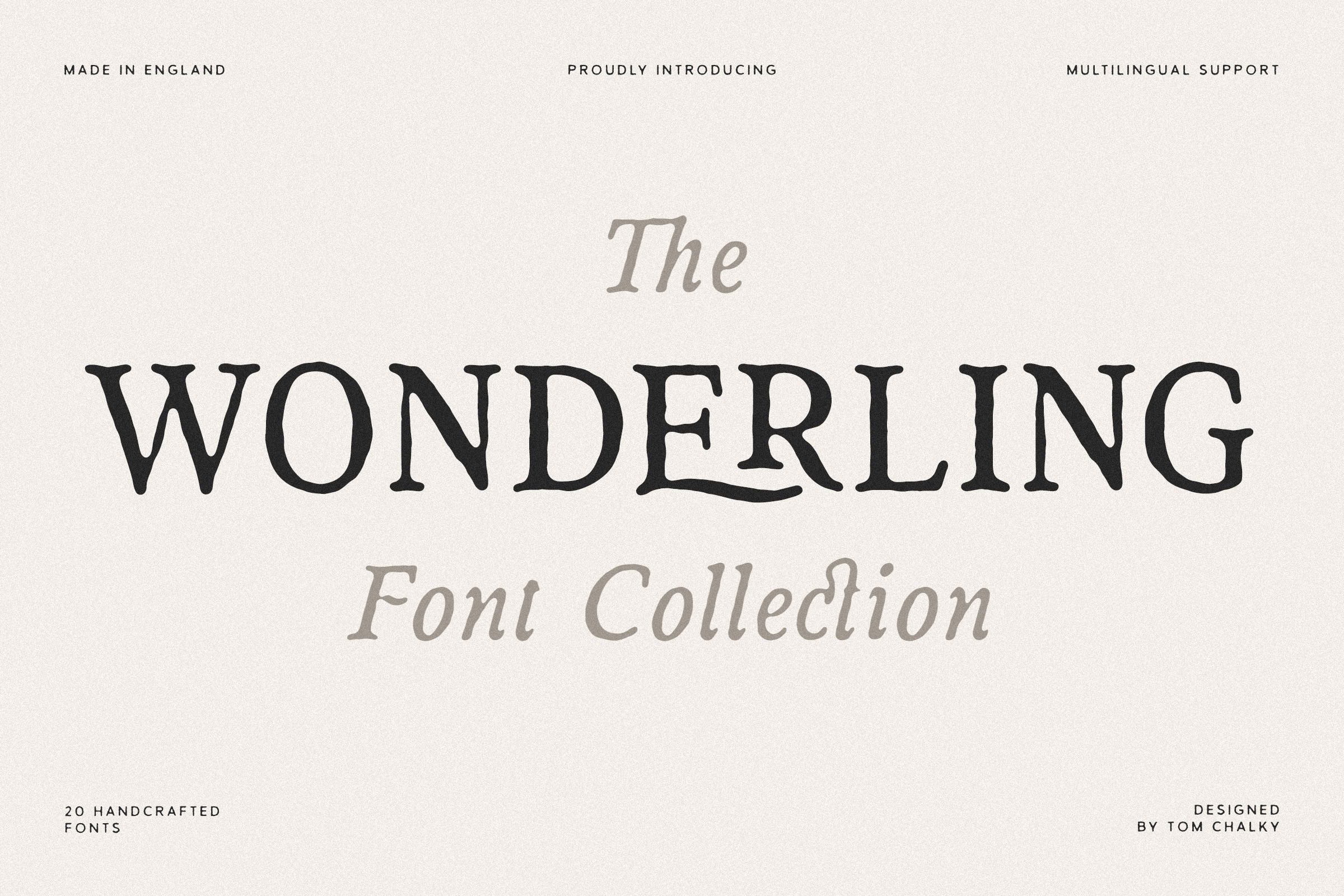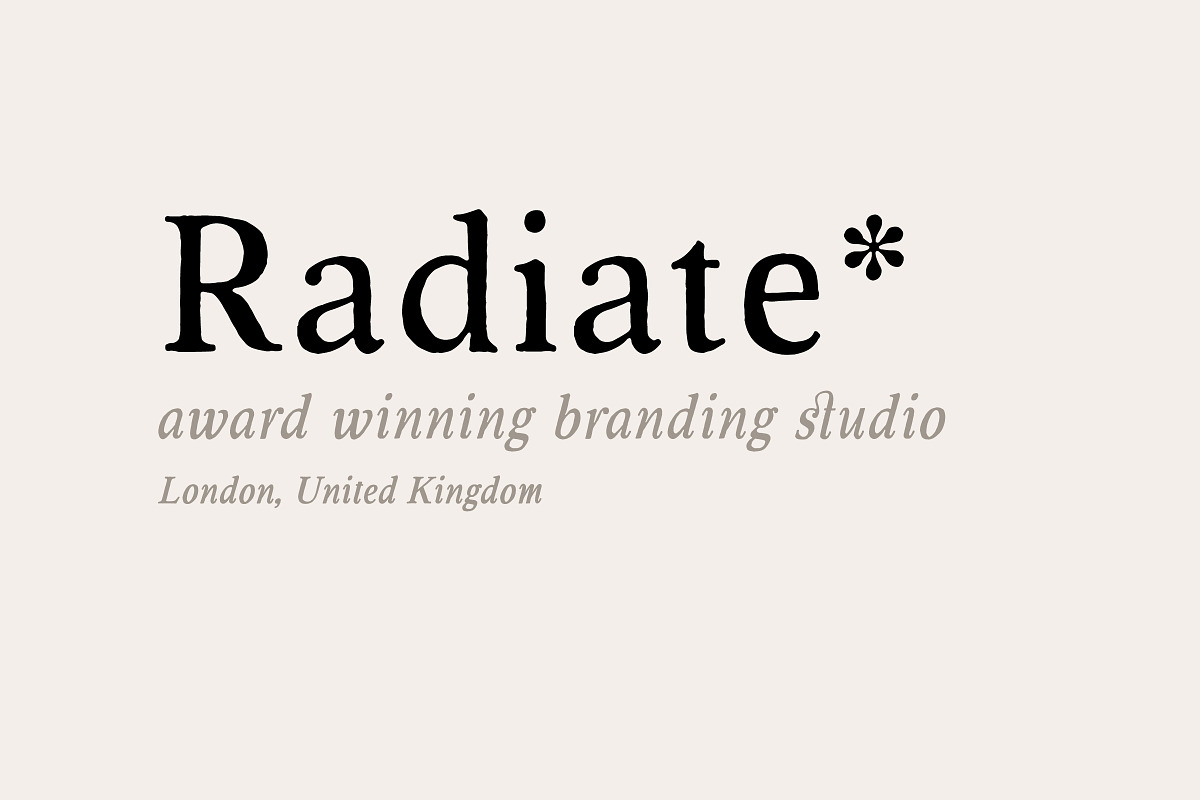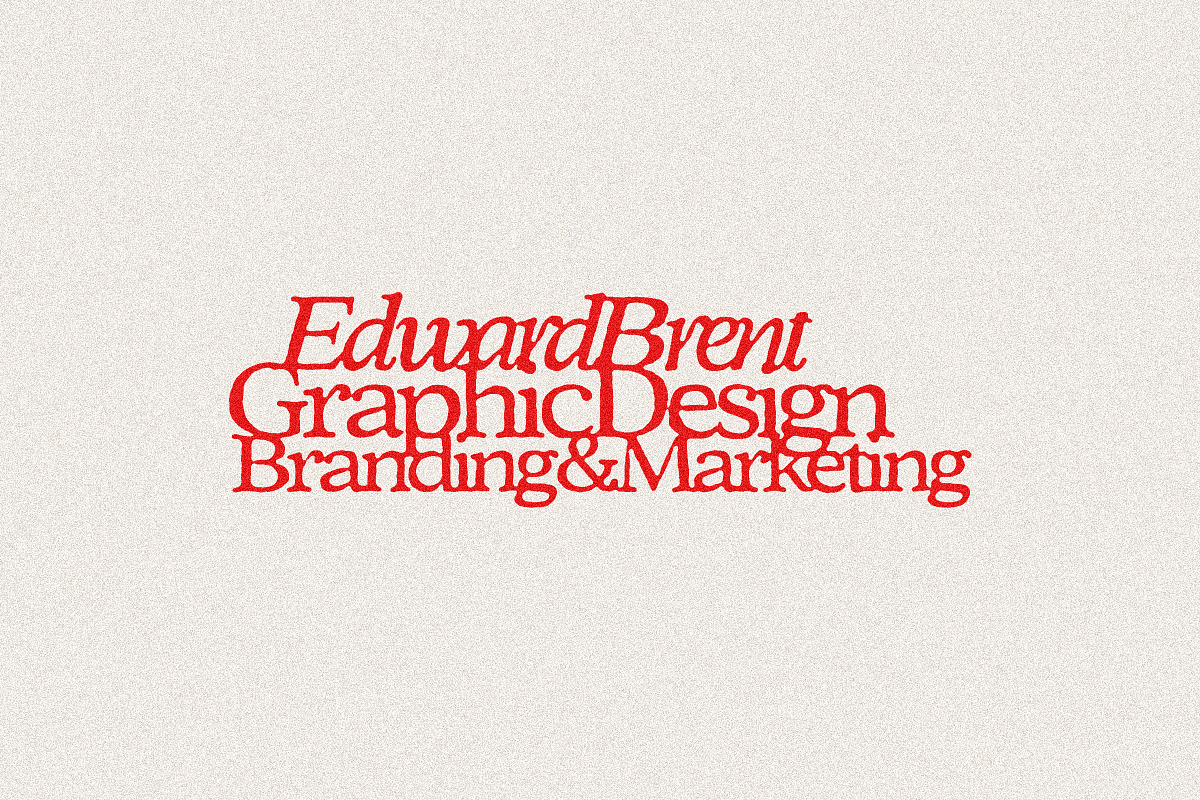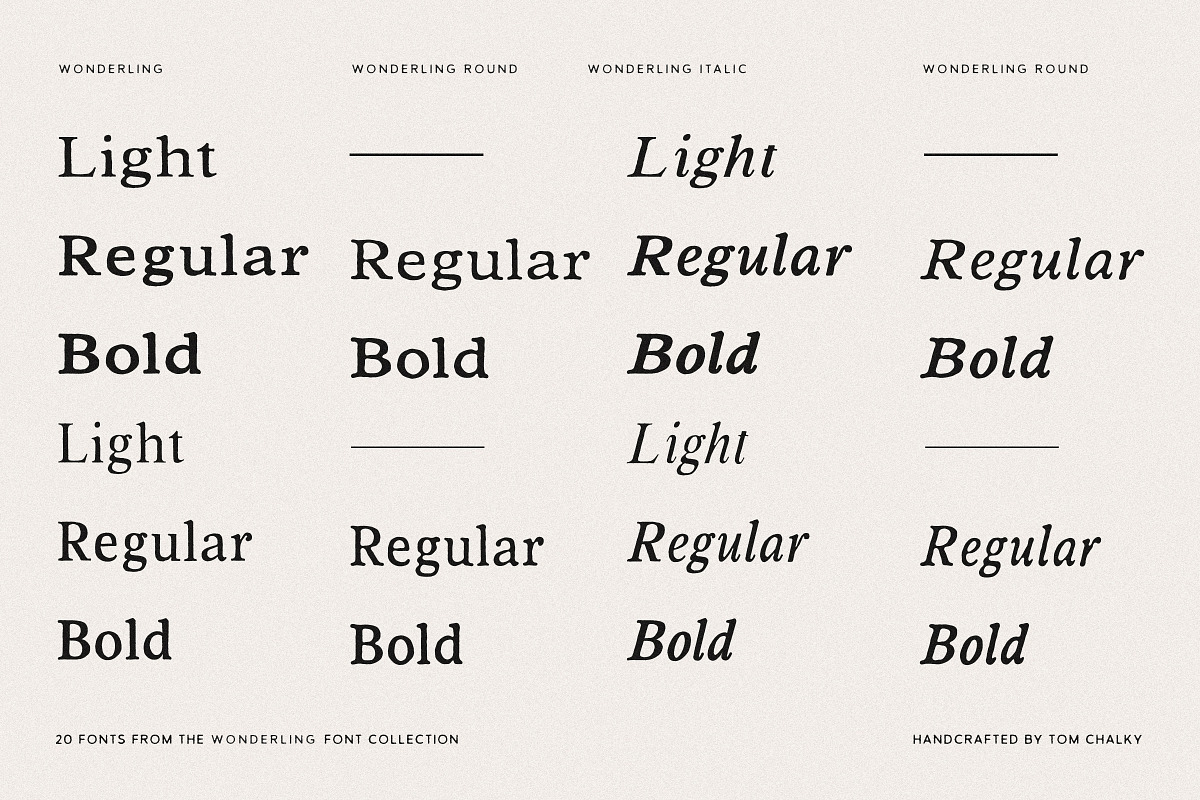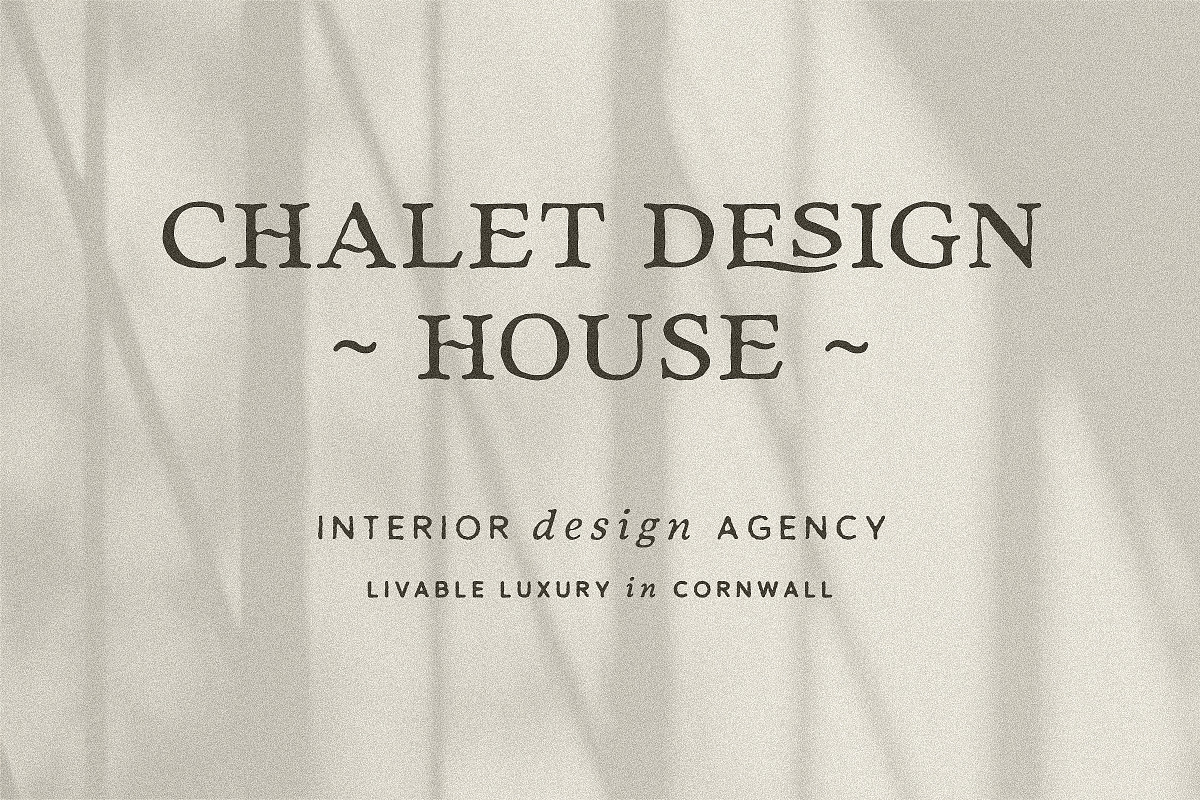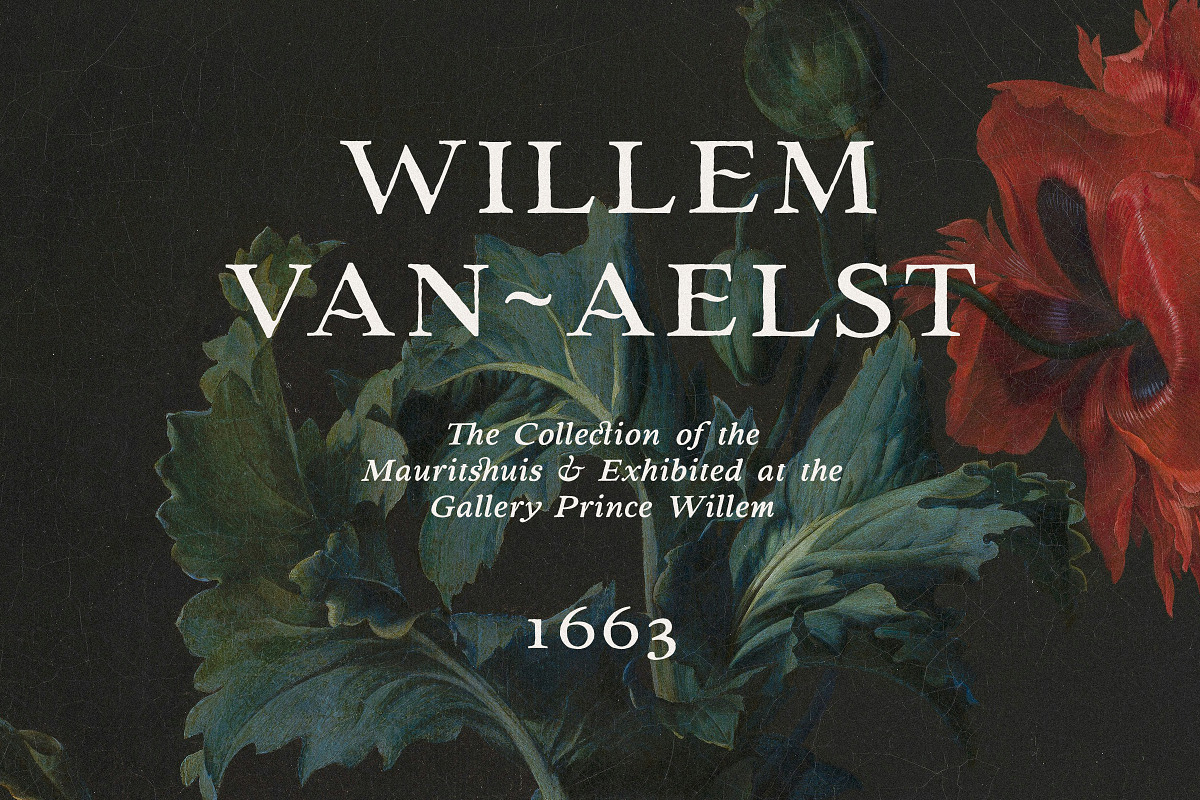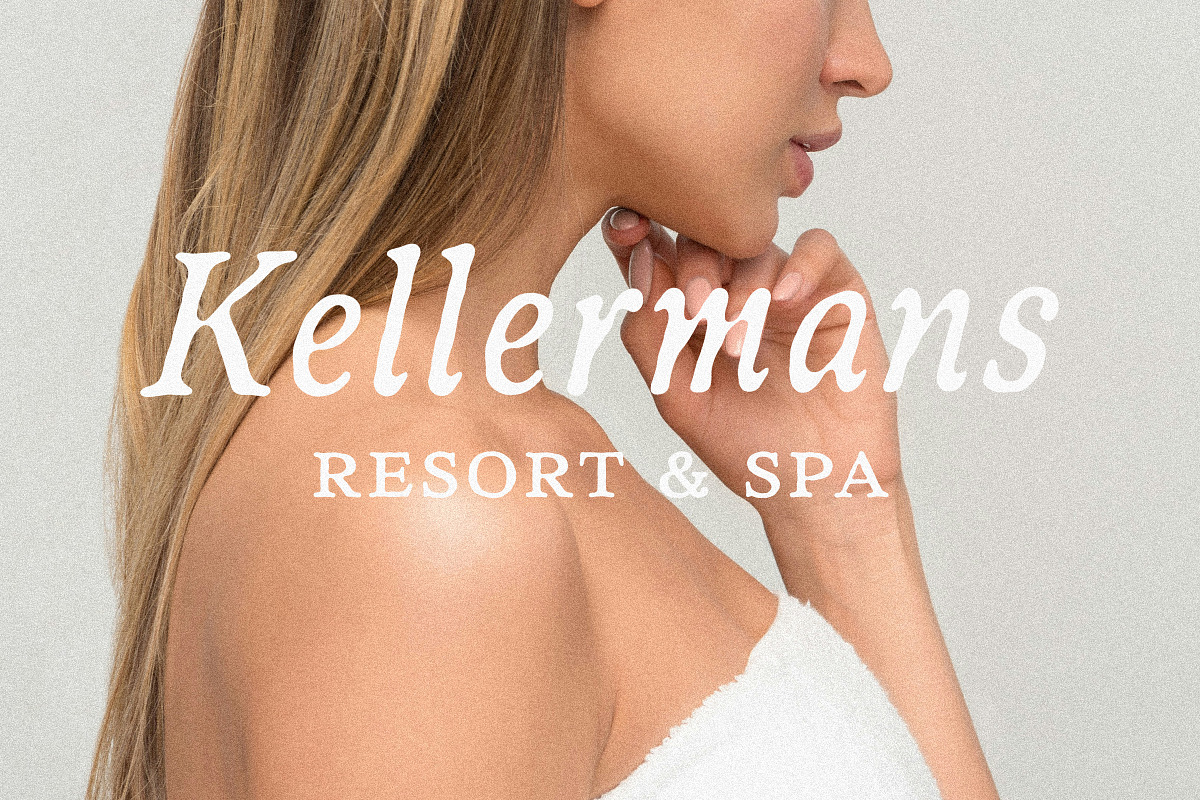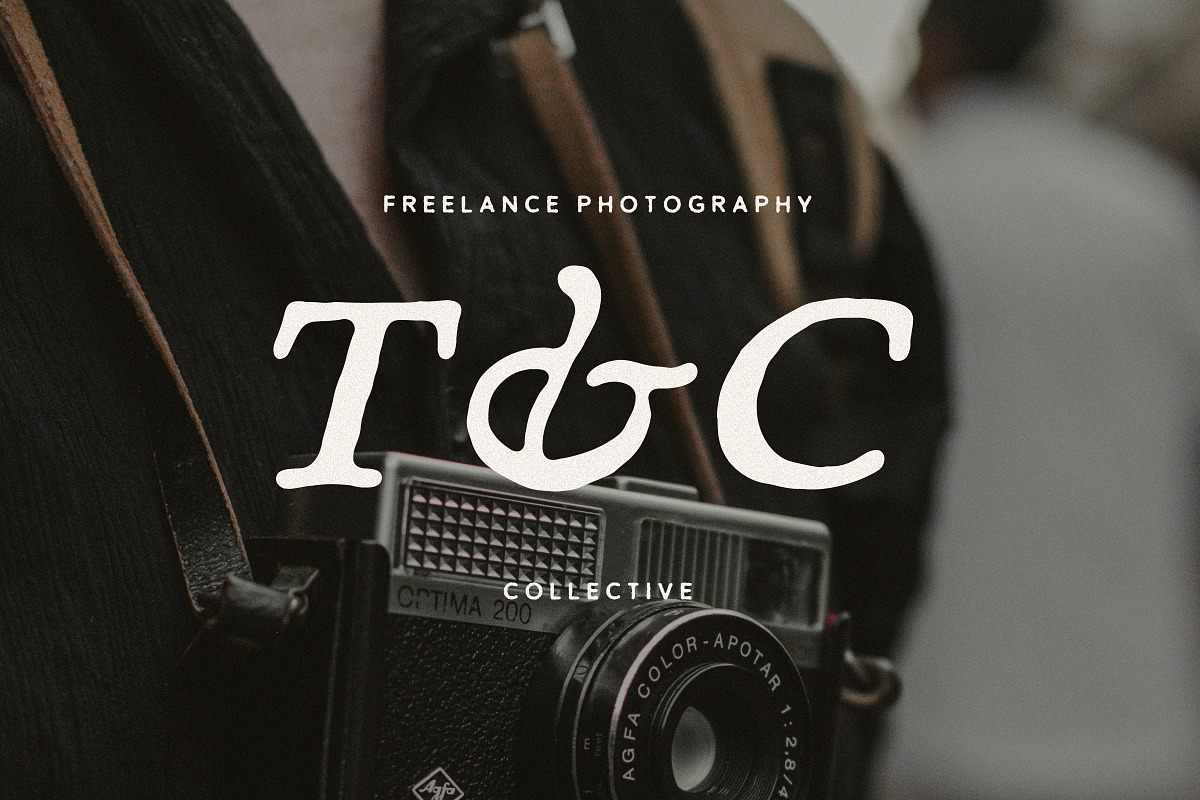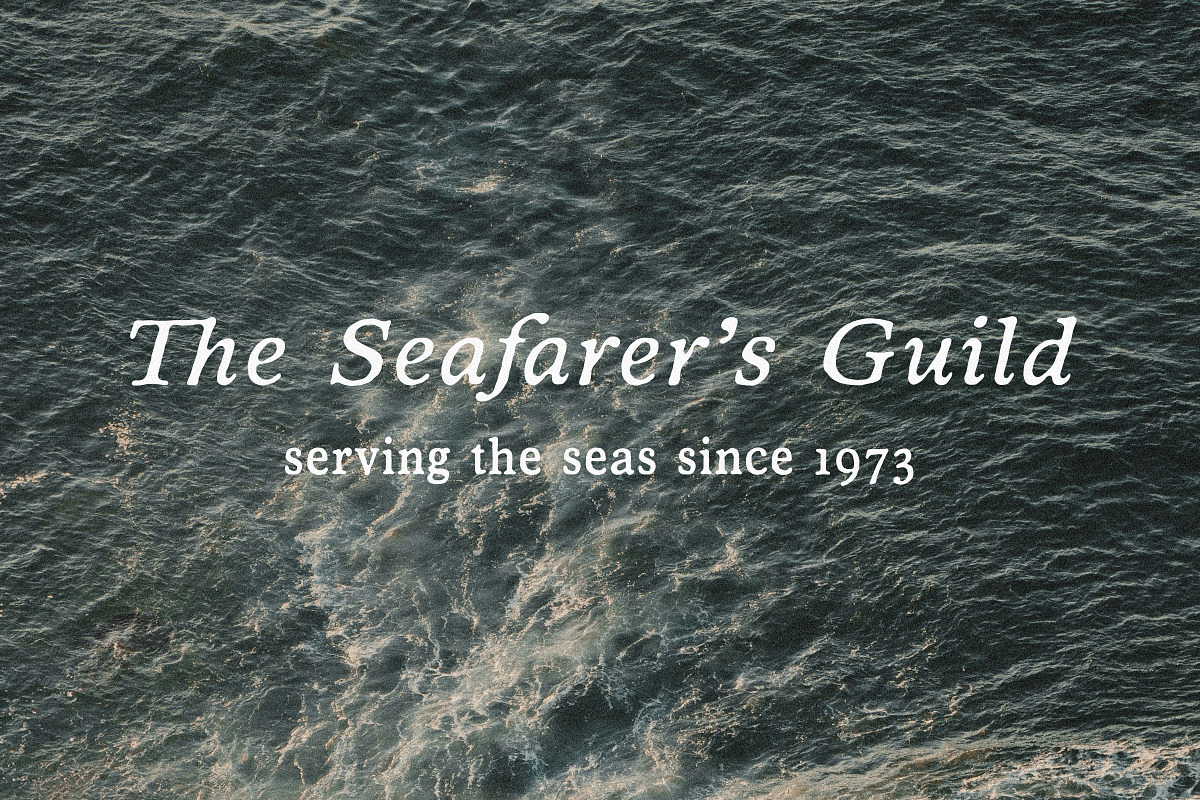
The Wonderling Font Pack
The 'Wonderling' Font Collection is a robust yet elegant tribute to vintage typography, perfect for projects that demand character and versatility.
Drawing inspiration from classic serif typefaces of years past, Wonderling combines timeless elegance with handcrafted charm, resulting in a collection of adaptable fonts suitable for a range of design applications—from logos to invitations, packaging to branding, and everything in between.
With 20 handcrafted fonts spanning multiple weights across regular, rounded, italic, and condensed styles, this collection offers plenty of versatility. Each font is packed with contextual ligatures and stylistic alternates for those moments when your designs need an extra touch of flair!
- Latin 1 Glyph range covering all Western European languages
- Stylistic Alternates and Contextual Ligatures throughout
- Wonderling: Light, Regular, Bold
- Wonderling Condensed: Light, Regular, Bold
- Wonderling Italic: Light, Regular, Bold
- Wonderling Condensed Italic: Light, Regular, Bold
- Wonderling Round: Regular, Bold
- Wonderling Round Condensed: Regular, Bold
- Wonderling Round Italic: Regular, Bold
- Wonderling Round Condensed Italic: Regular, Bold